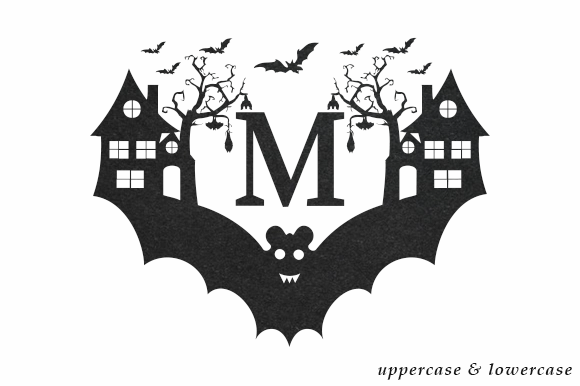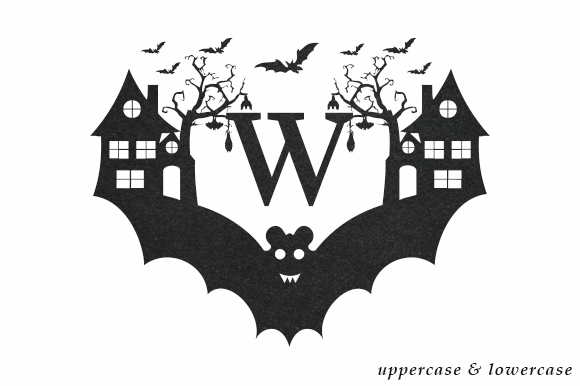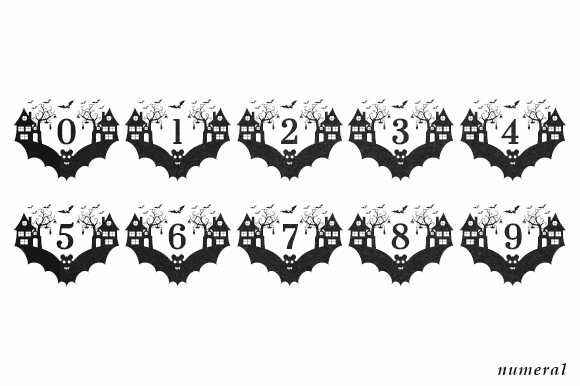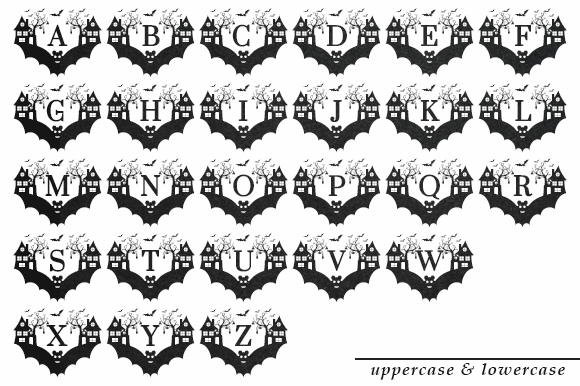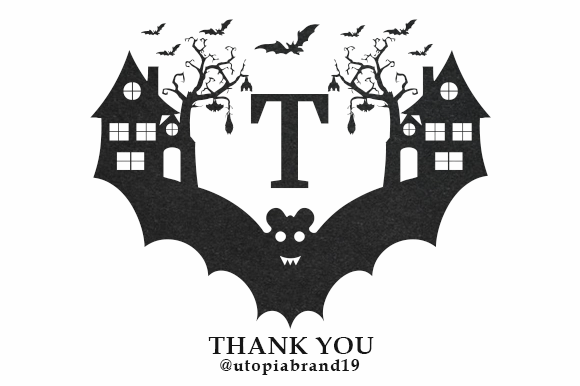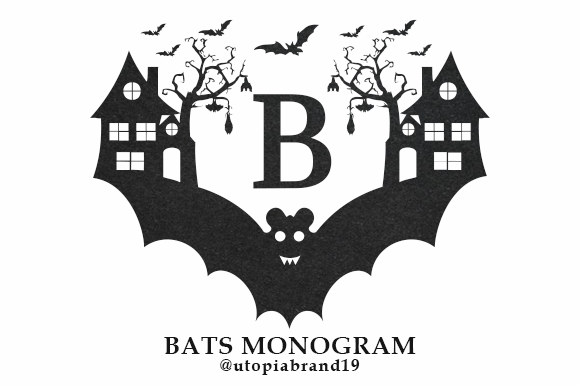
Bats Monogram Font: Add a Spooky Touch to Your Halloween Designs
Are you looking for a font that will make your Halloween designs stand out from the crowd? Look no further than the Bats Monogram Font. This incredibly unique and spooky decorative font is perfect for adding a touch of eeriness to your designs. In this article, we’ll take a closer look at the Bats Monogram Font and how you can use it to make your Halloween designs come to life.
What is Bats Monogram Font?
Bats Monogram Font is a decorative font that features intricate bat-inspired designs. The font is perfect for creating spooky and eye-catching designs, making it ideal for Halloween-themed projects. The font is available in various formats, making it easy to use in different design software.
Unique Features of Bats Monogram Font
The Bats Monogram Font has several unique features that make it stand out from other fonts. Some of its key features include:
- Intricate Bat Designs: The font features intricate bat-inspired designs that add a touch of spookiness to your designs.
- Monogram Style: The font is designed in a monogram style, making it perfect for creating custom monograms and logos.
How to Use Bats Monogram Font in Your Designs
Using the Bats Monogram Font in your designs is easy. Here are some tips to get you started:
- Halloween-themed Projects: Use the font to create spooky and eye-catching designs for Halloween-themed projects, such as invitations, posters, and social media graphics.
- Custom Monograms: Use the font to create custom monograms and logos for your clients or personal projects.
- Crafting Projects: Use the font to add a personal touch to your crafting projects, such as handmade cards, gift tags, and scrapbooking pages.
Benefits of Using Bats Monogram Font
There are several benefits to using the Bats Monogram Font in your designs. Some of the key benefits include:
- Unique and Eye-Catching Designs: The font helps you create unique and eye-catching designs that will stand out from the crowd.
- Time-Saving: The font saves you time and effort, as you don’t have to create your own designs from scratch.
- Versatility: The font is versatile and can be used in different design software and projects.
Tips for Designing with Bats Monogram Font
Here are some tips for designing with the Bats Monogram Font:
- Choose the Right Color Scheme: Choose a color scheme that complements the spooky and eerie theme of the font.
- Experiment with Different Sizes: Experiment with different sizes and styles to create unique and eye-catching designs.
- Add Graphics and Images: Add graphics and images to your designs to make them more visually appealing.
In conclusion, the Bats Monogram Font is an incredibly unique and spooky decorative font that is perfect for adding a touch of eeriness to your Halloween designs. With its intricate bat-inspired designs and monogram style, the font is ideal for creating custom monograms and logos. By following the tips outlined in this article, you can create unique and eye-catching designs that will make your Halloween projects stand out from the crowd.